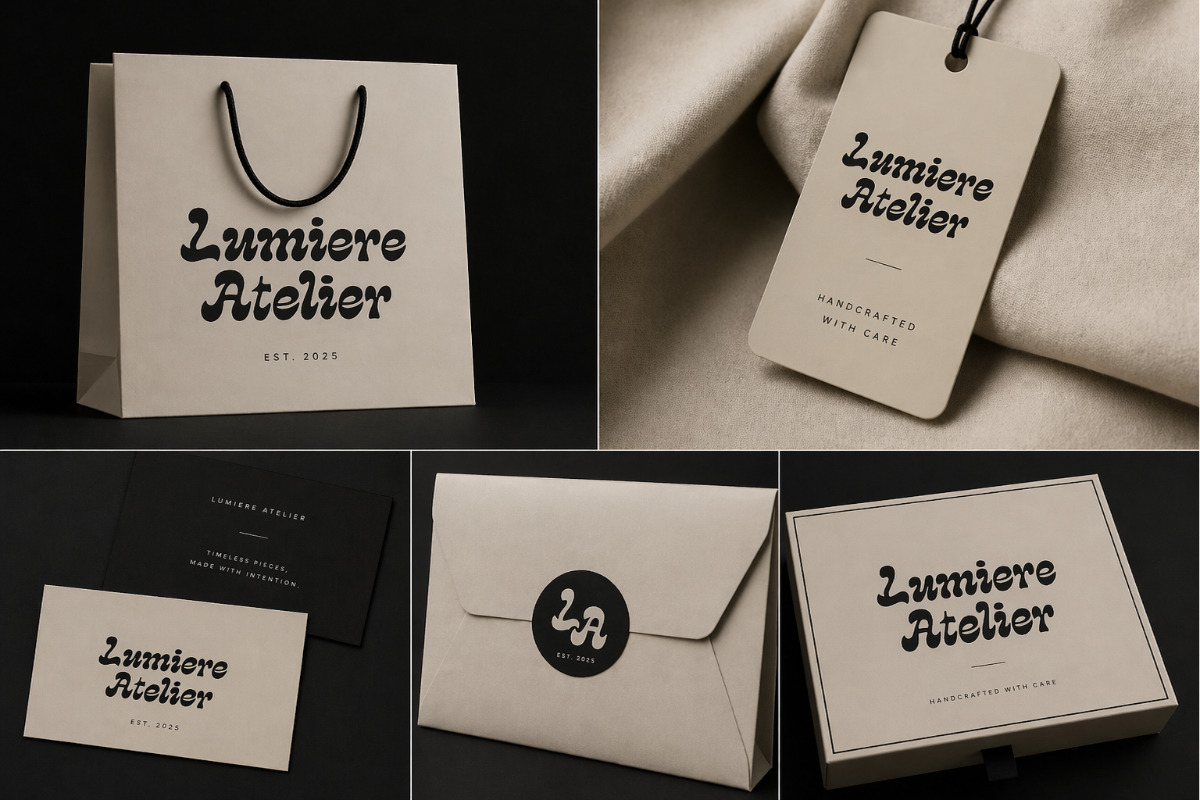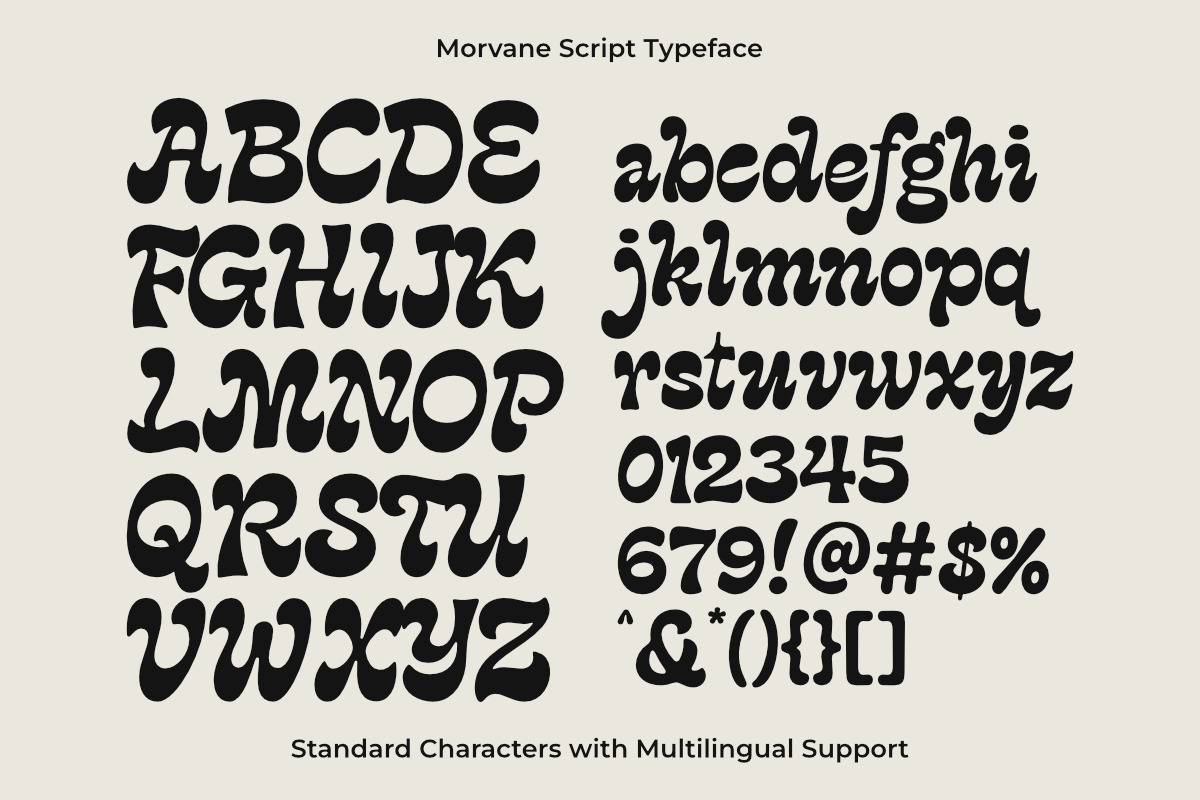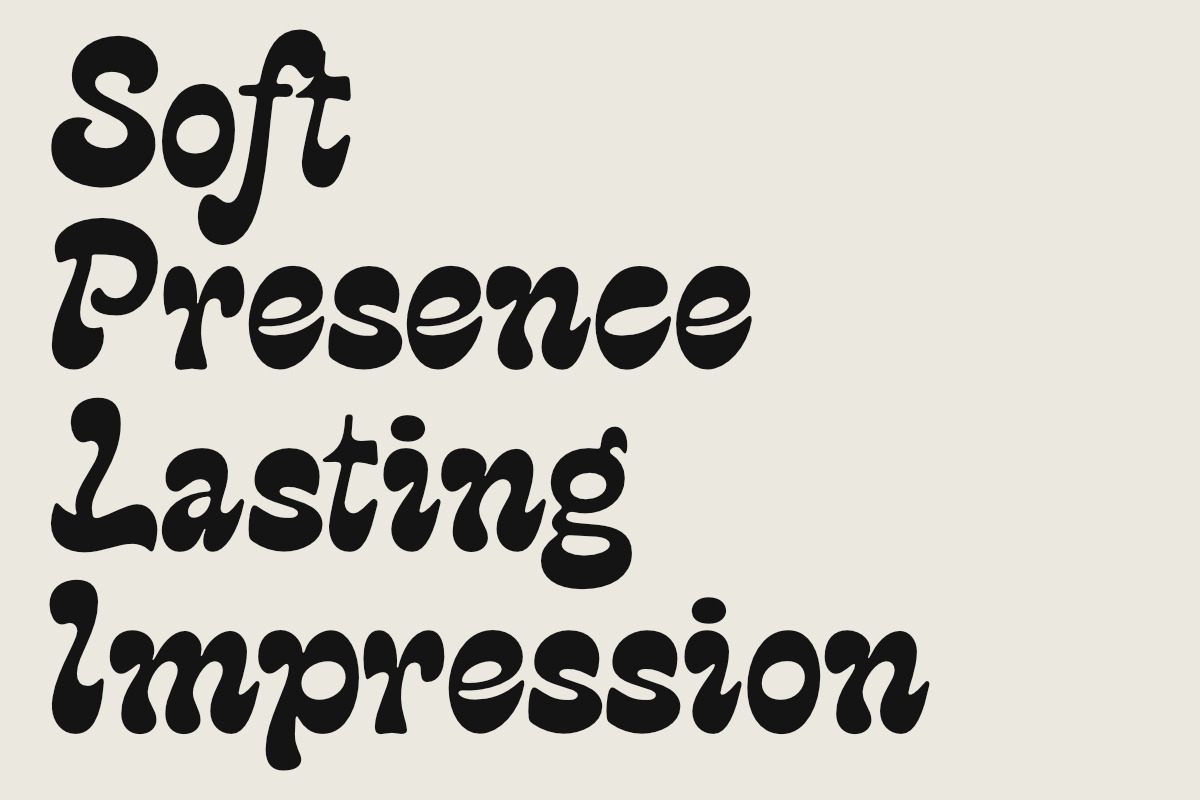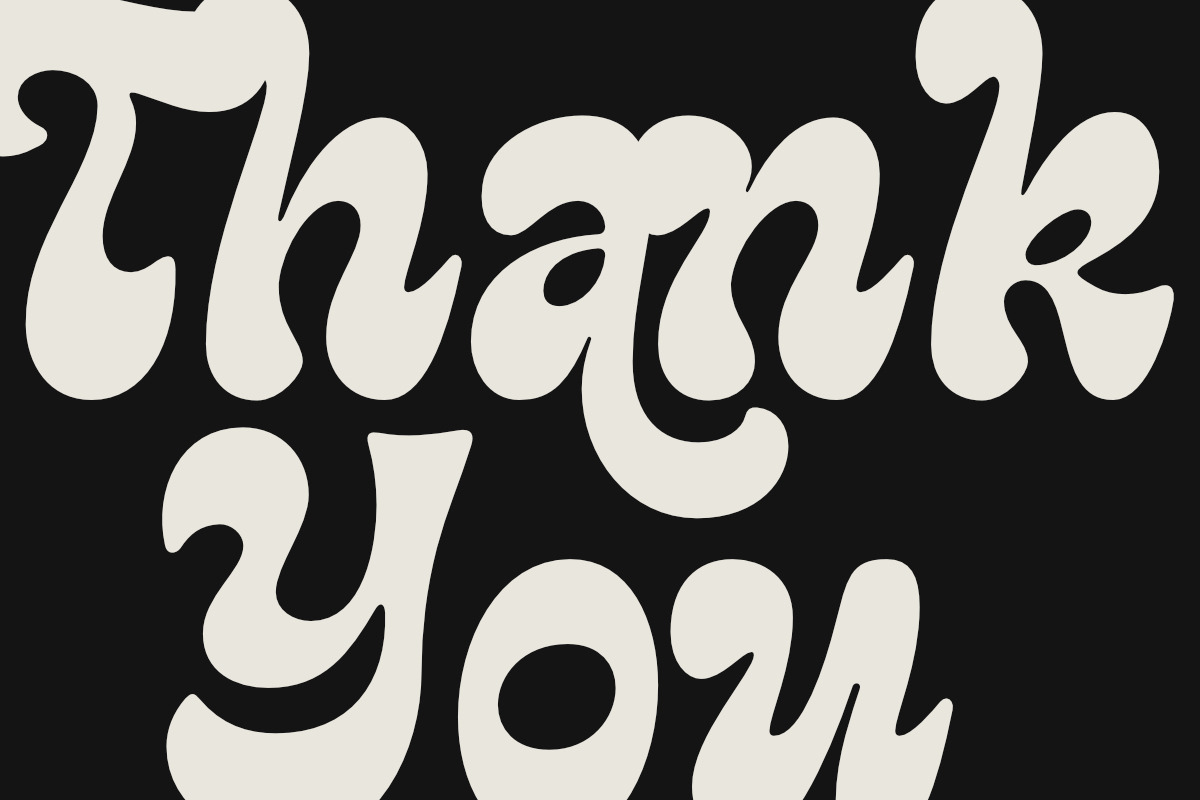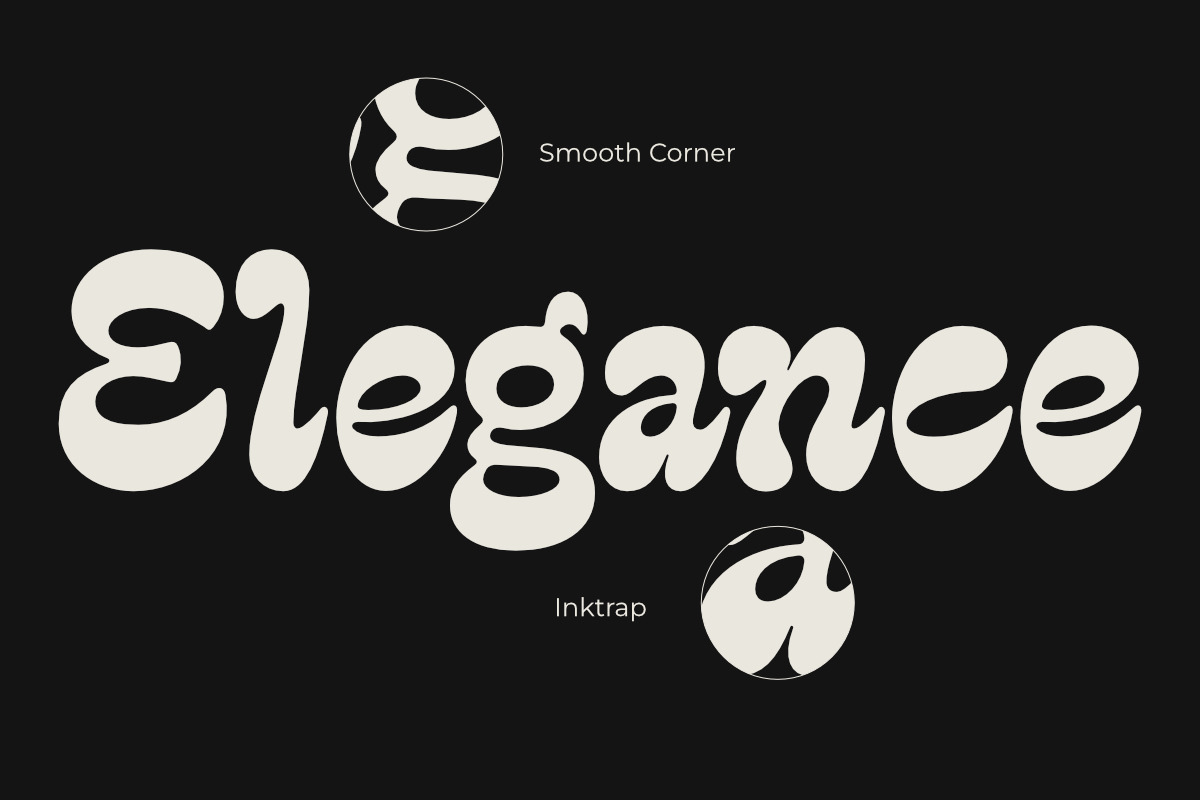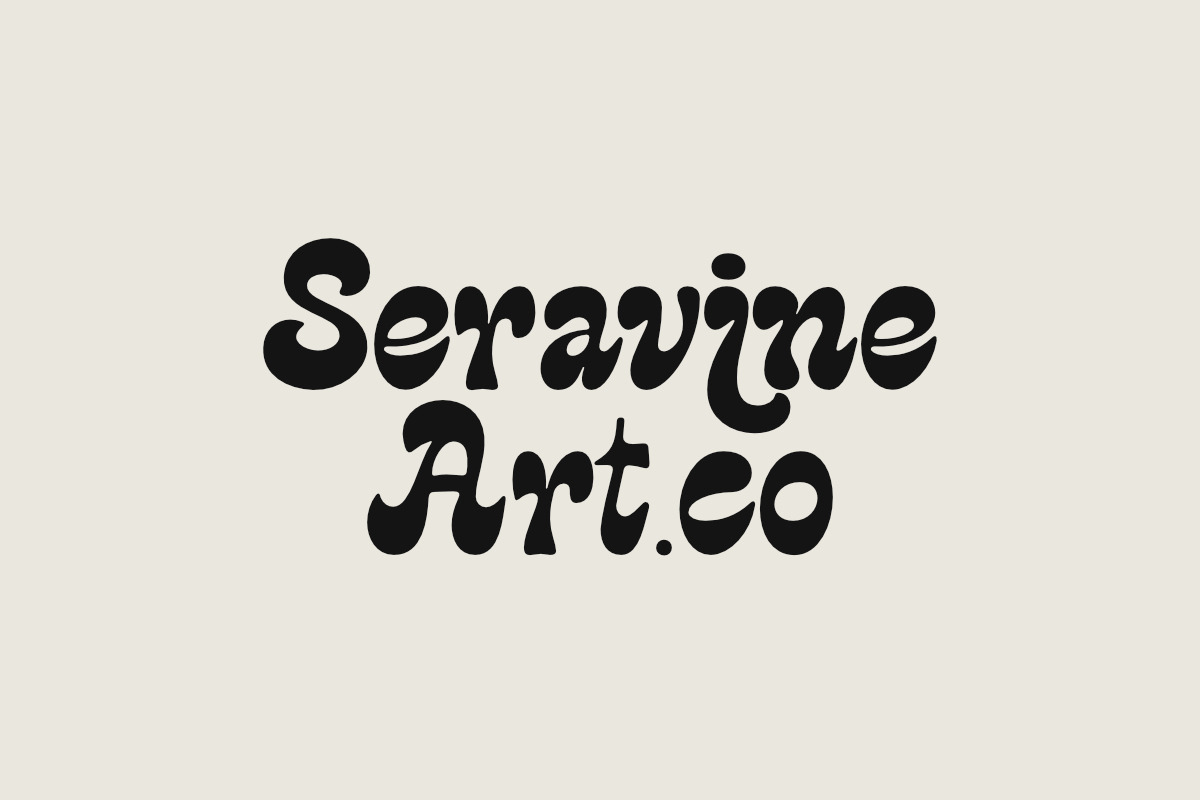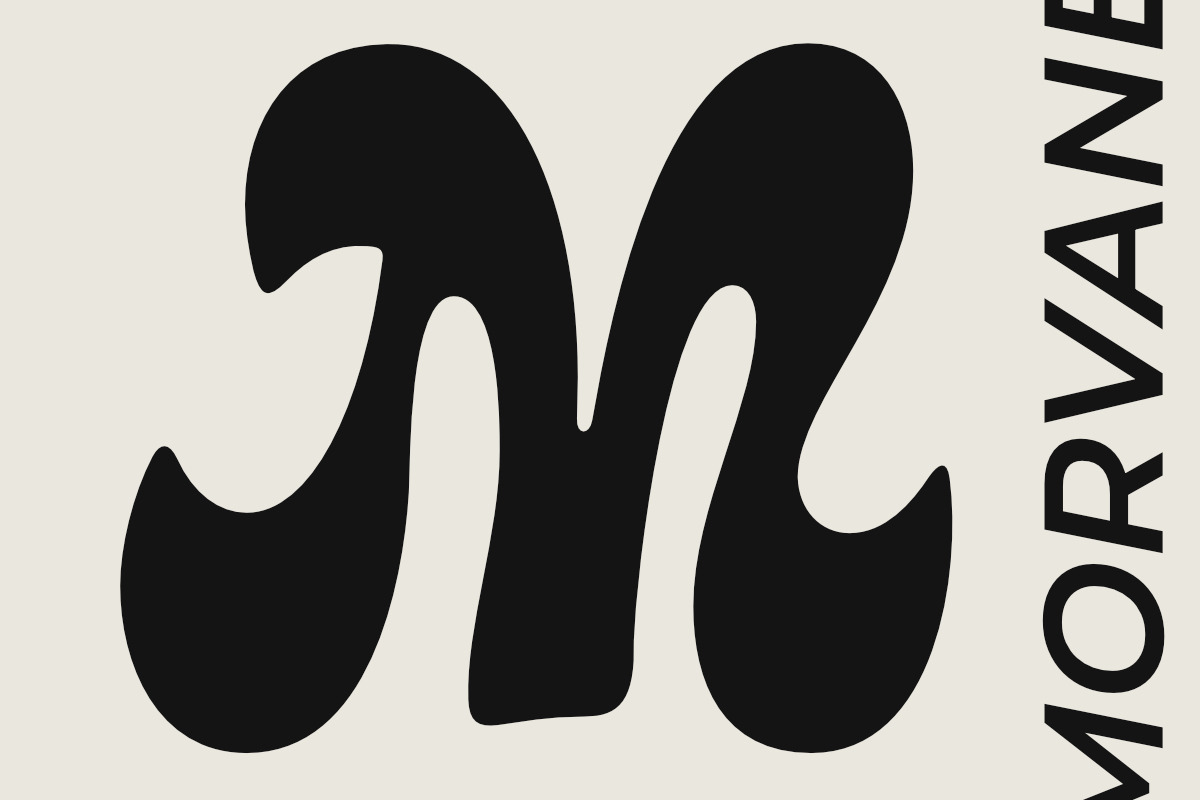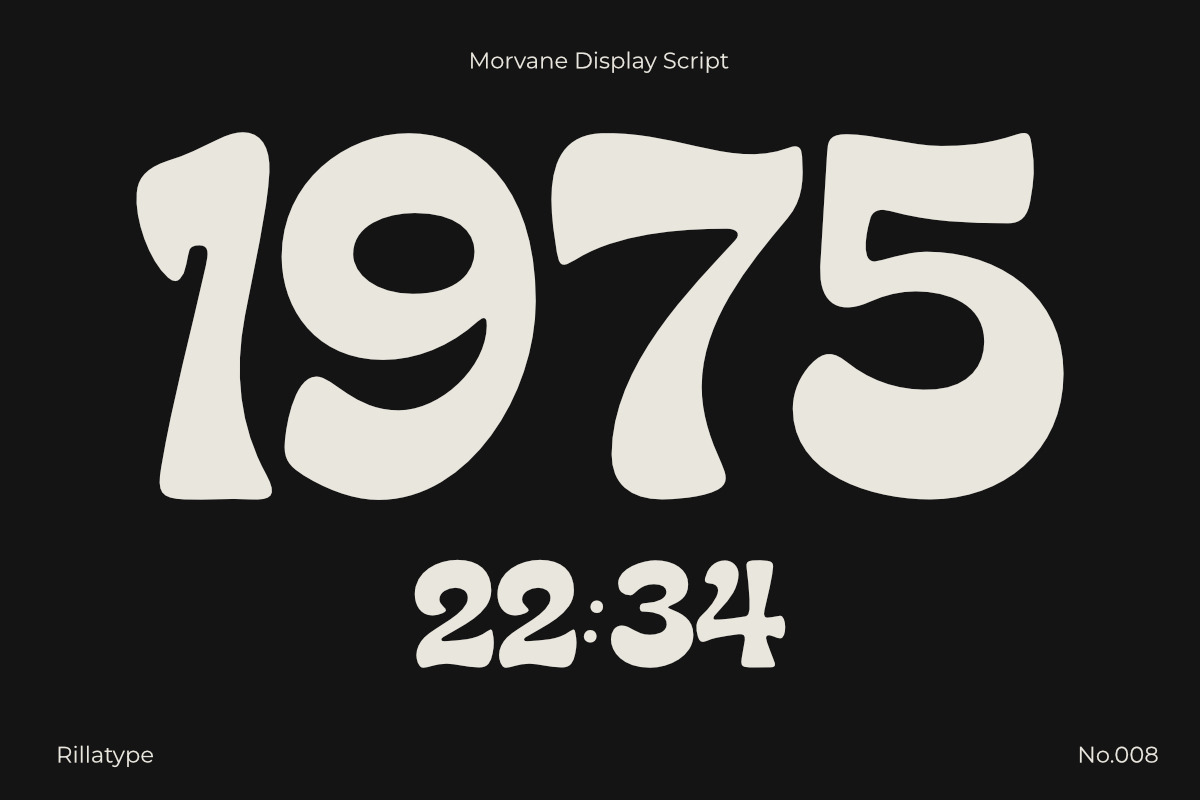
Morvane Display Script
Morvane is an elegant script typeface with soft curves and a smooth flow, designed to create a refined and modern look. Perfect for branding, logos, invitations, and packaging, Morvane adds a subtle touch of luxury to any design.
Includes uppercase, lowercase, numerals, punctuation, alternates, and multilingual support.